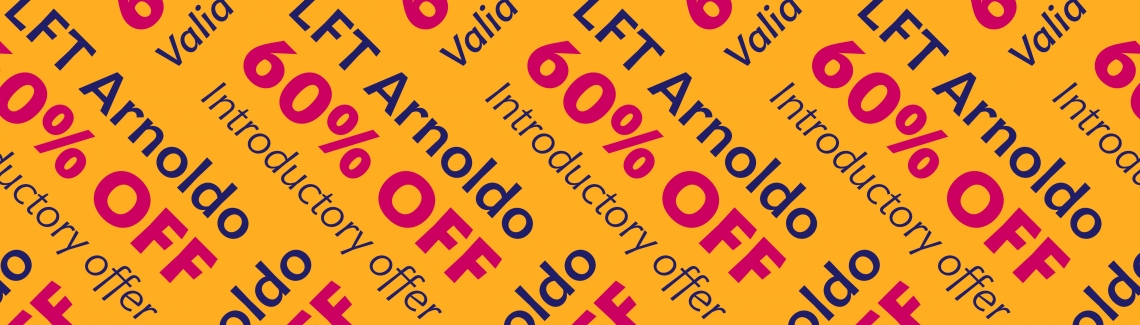
LFT Arnoldo release and 60% intro offer
We are very pleased to be able to present LFT Arnoldo with a 60% introductory offer. LFT Arnoldo is a flared humanist sans that is intelligent and refined. Its chiselled structure sets dramatic titles worthy of any classic work, and its calm and dependable nature grounds paragraphs in the now.
Renowned Italian strategy and design firm, Leftloft, have released another font family, LFT Arnoldo — a captivating vehicle of aesthetic expression in a flared humanist sans typeface. Begun as an all-caps titling font and expanded to a 14-style family, LFT Arnoldo is an editorial family whose natural environment is the printed page. Its engraved details make the typeface remarkable in large sizes and maintains legibility in paragraph sizes, and the 60% introductory discount makes it a must-have deal. Use the desktop type tester to see the range of LFT Arnoldo — a companion to the centuries.